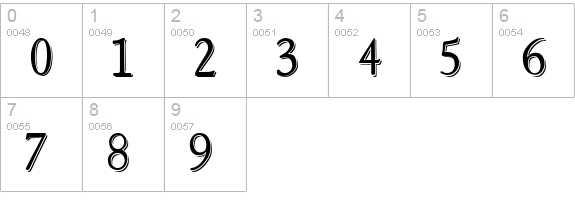
NewStyleTitling Embossed Font Details
Introducing the NewStyleTitling Embossed font - a striking and elegant typeface that exudes sophistication and style. This unique font features intricate embossed details that add a touch of luxury to any design project. Perfect for creating eye-catching headlines, logos, invitations, and more, NewStyleTitling Embossed is sure to make a lasting impression. The best part? This exquisite font is available for free download at FontsMarket.com. Whether you're a designer looking to elevate your work or a creative enthusiast in search of a versatile font, NewStyleTitling Embossed is the perfect choice. Download it today and add a touch of glamour to your designs with this stunning typeface.